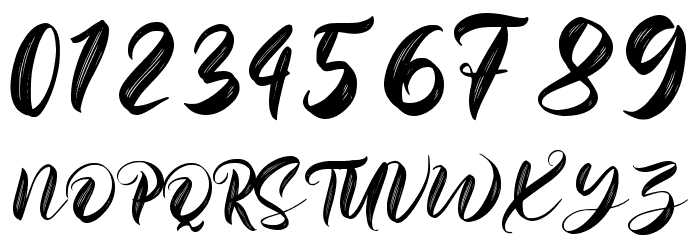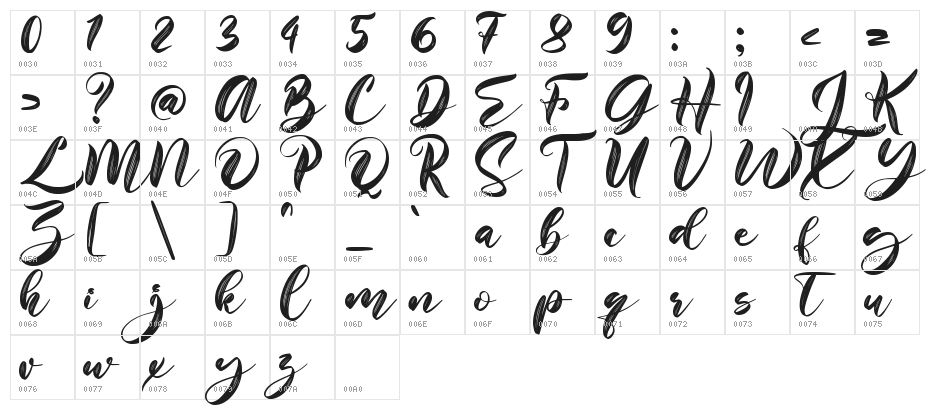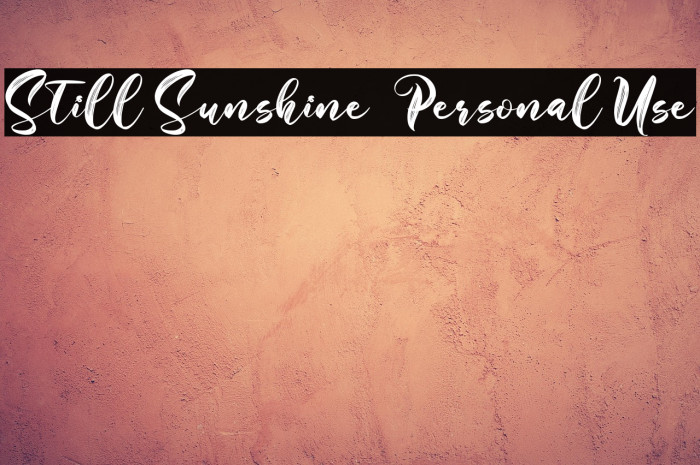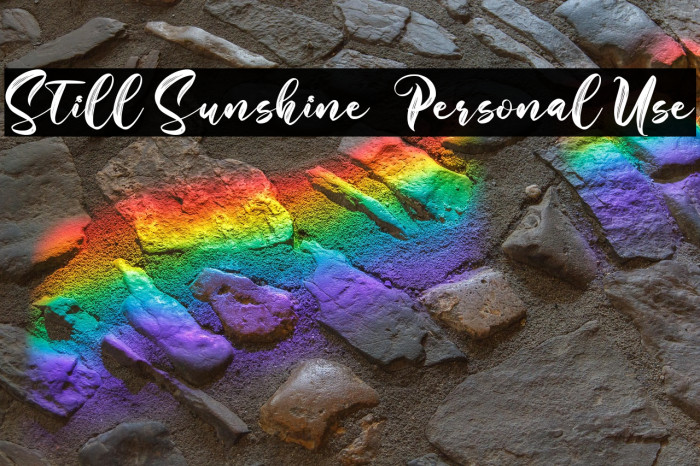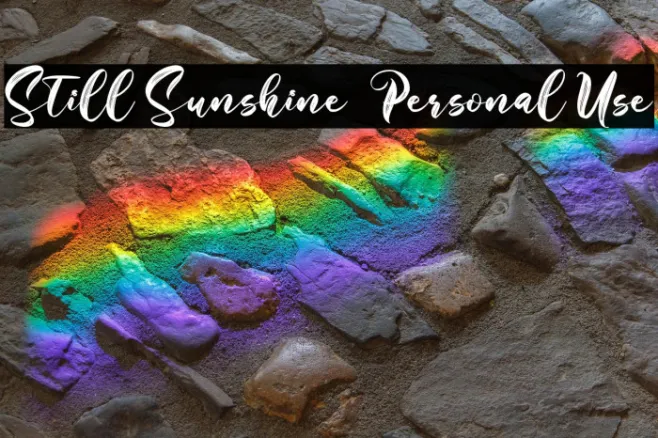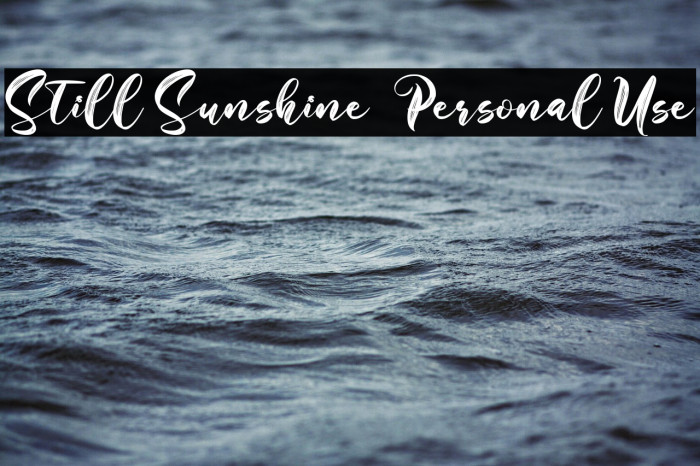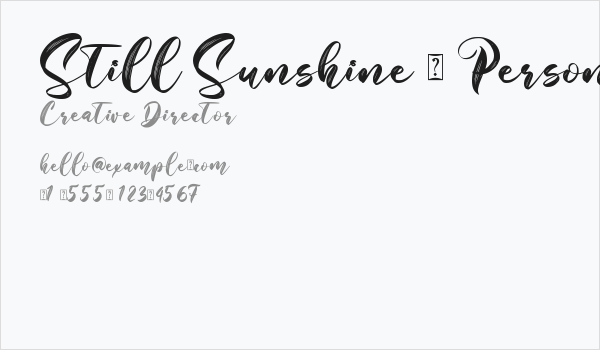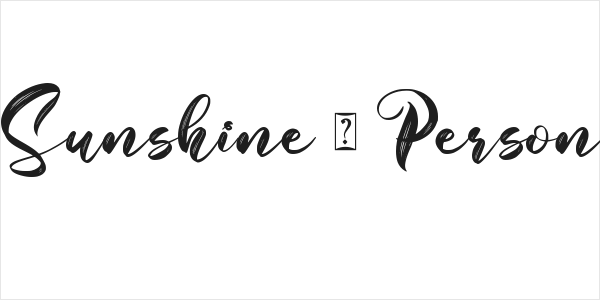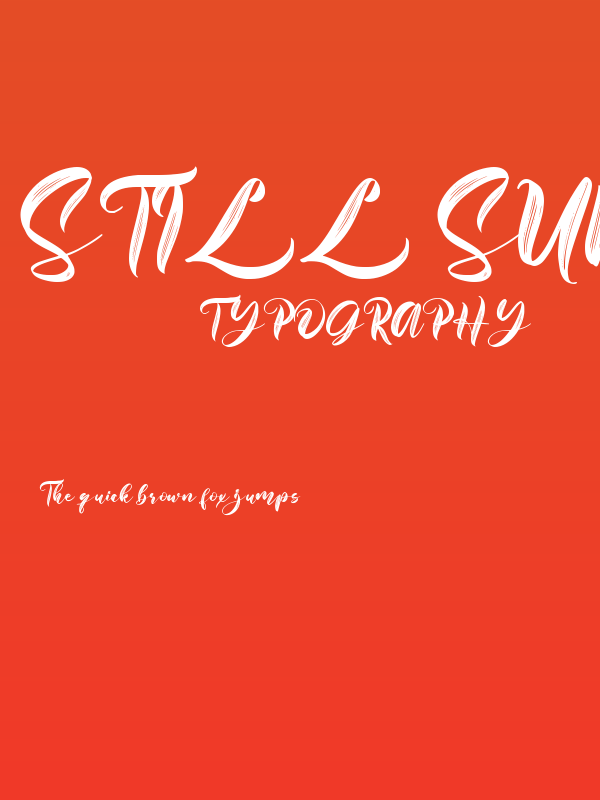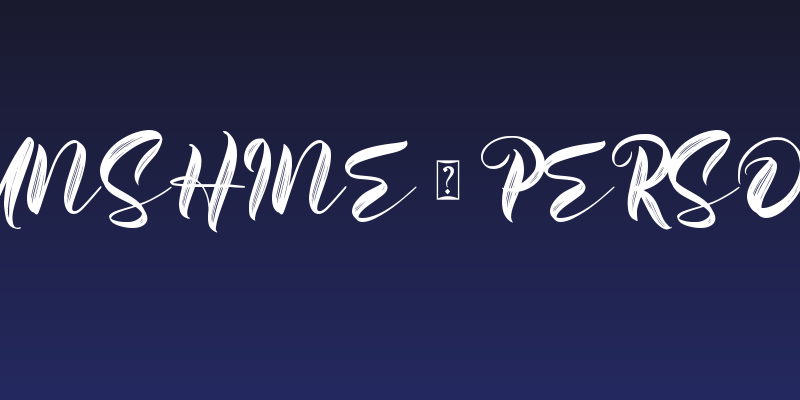
Still Sunshine - Personal Use Font
Still Sunshine - Personal Use Description
This font features a bold and expressive script style with a handwritten appearance. The letters are characterized by flowing, cursive strokes that vary in thickness, creating a dynamic and artistic look. The uppercase letters are elegantly crafted with flourishes, while the lowercase letters maintain a consistent fluidity. The numbers and special characters are designed to match the overall aesthetic, with a playful yet sophisticated touch. This font exudes a sense of creativity and elegance, making it suitable for projects that require a personal and artistic flair.
| Proposed Projects | Ideal for wedding invitations, greeting cards, branding, and artistic projects that require a personal touch. |